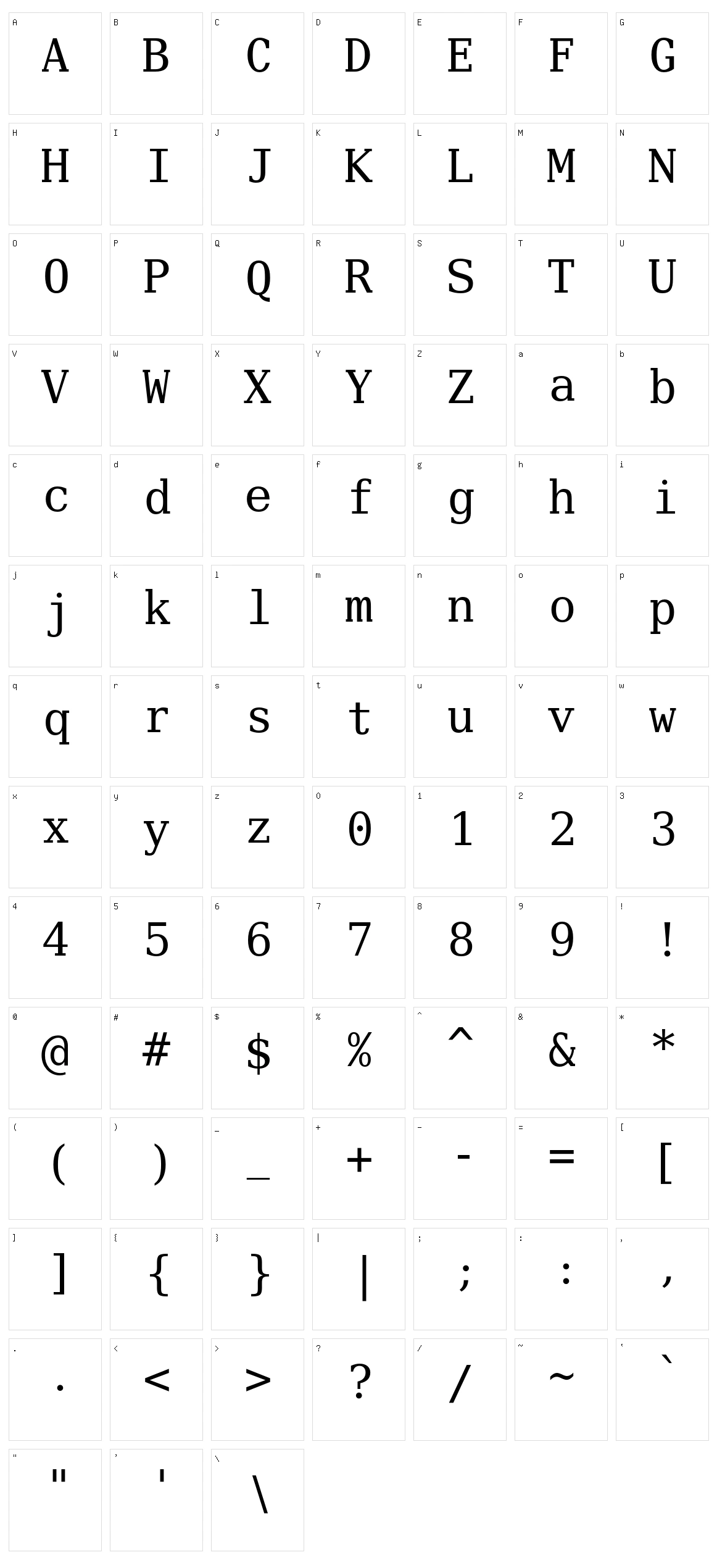
Verily Serif Mono is derived from Bitstream Vera Serif with the same proportions as Bitstream Vera Sans Mono. Only the primary ASCII characters have been modified; I have no plans at the moment to modify the extended character set or to do a bold version.